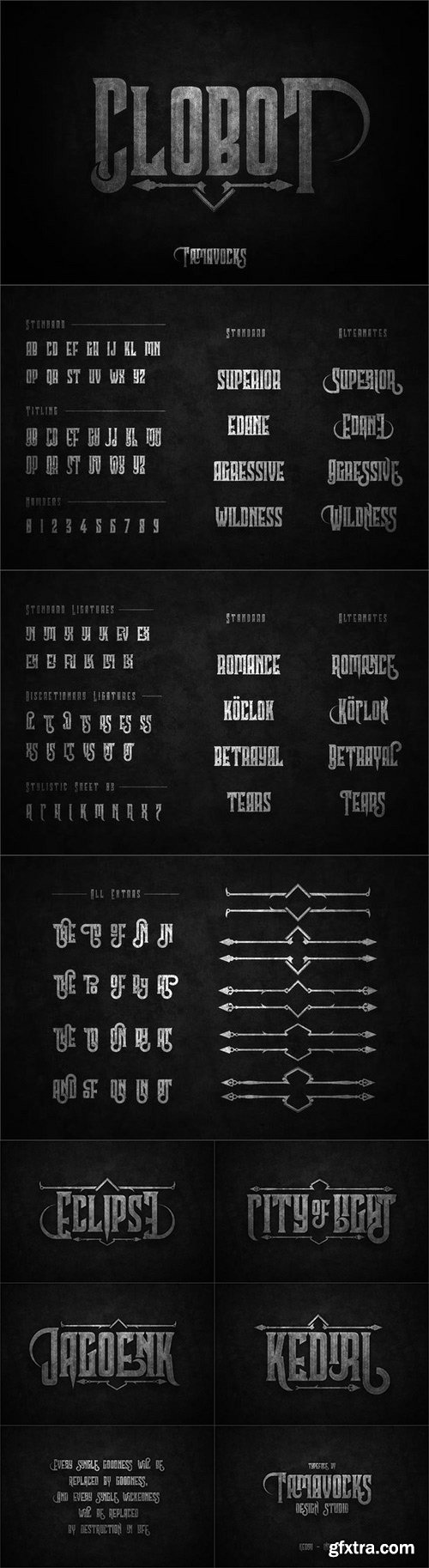
CM - Clobot Typeface + Extras 636147
Clobot is a typeface inspired from clean and elegant graphics, made with a simple style and elegant look. The Clobot typeface includes a full set of uppercase and lowercase letters as well as multi-lingual and currency support, numerals, punctuations, alternates, ligatures and some extra glyphs.